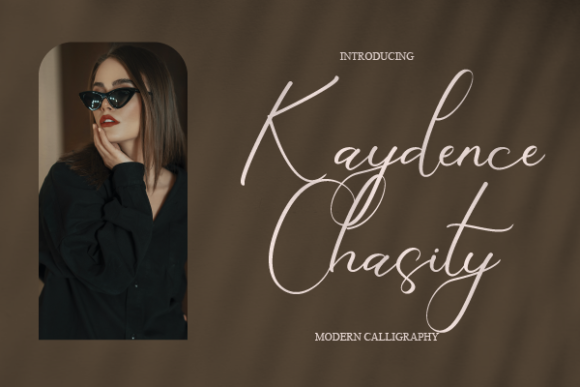
Prepare yourself to be captivated by Kaydence Chasity Font, a breathtaking script typeface that will effortlessly elevate your designs to new heights. Created by the talented Zero Type, this exquisite font exudes elegance and charm with its enchanting curves and sweeping lines. Kaydence Chasity is not merely a font; it's an artistic masterpiece that will transform your creative visions into reality.
Immerse yourself in the world of visual allure as you explore the boundless possibilities of Kaydence Chasity. Its meticulously crafted characters dance across the screen, evoking a sense of sophistication and timeless beauty. Whether you're crafting product packaging that demands attention, designing a captivating branding project, or creating magazine covers that leave a lasting impression, Kaydence Chasity is your perfect companion.
With Kaydence Chasity, social media platforms become your canvas, where your words come alive with an unmatched grace and allure. Share your thoughts, promote your brand, or simply express yourself with a touch of elegance that will captivate your audience. And when that special day arrives, let Kaydence Chasity add a touch of magic to your wedding invitations and other celebratory designs.
Beyond its versatility, Kaydence Chasity possesses a remarkable ability to transcend boundaries. Its characters seamlessly blend with any background, allowing your words to shine through with clarity and impact. Whether you're overlaying text on images, creating eye-catching logos, or designing social media graphics, Kaydence Chasity ensures that your message is seen and remembered.
Don't settle for ordinary fonts that blend into the background. Embrace the beauty and distinction of Kaydence Chasity and watch as your designs take center stage. Its elegant curves and captivating lines will leave an unforgettable impression, captivating your audience and leaving them yearning for more.
So why wait? Embrace the transformative power of Kaydence Chasity Font today and unleash the full potential of your creativity. Let your designs shine with an elegance and sophistication that will leave a lasting impression. Experience the magic of Kaydence Chasity and elevate your work to new heights of visual brilliance.